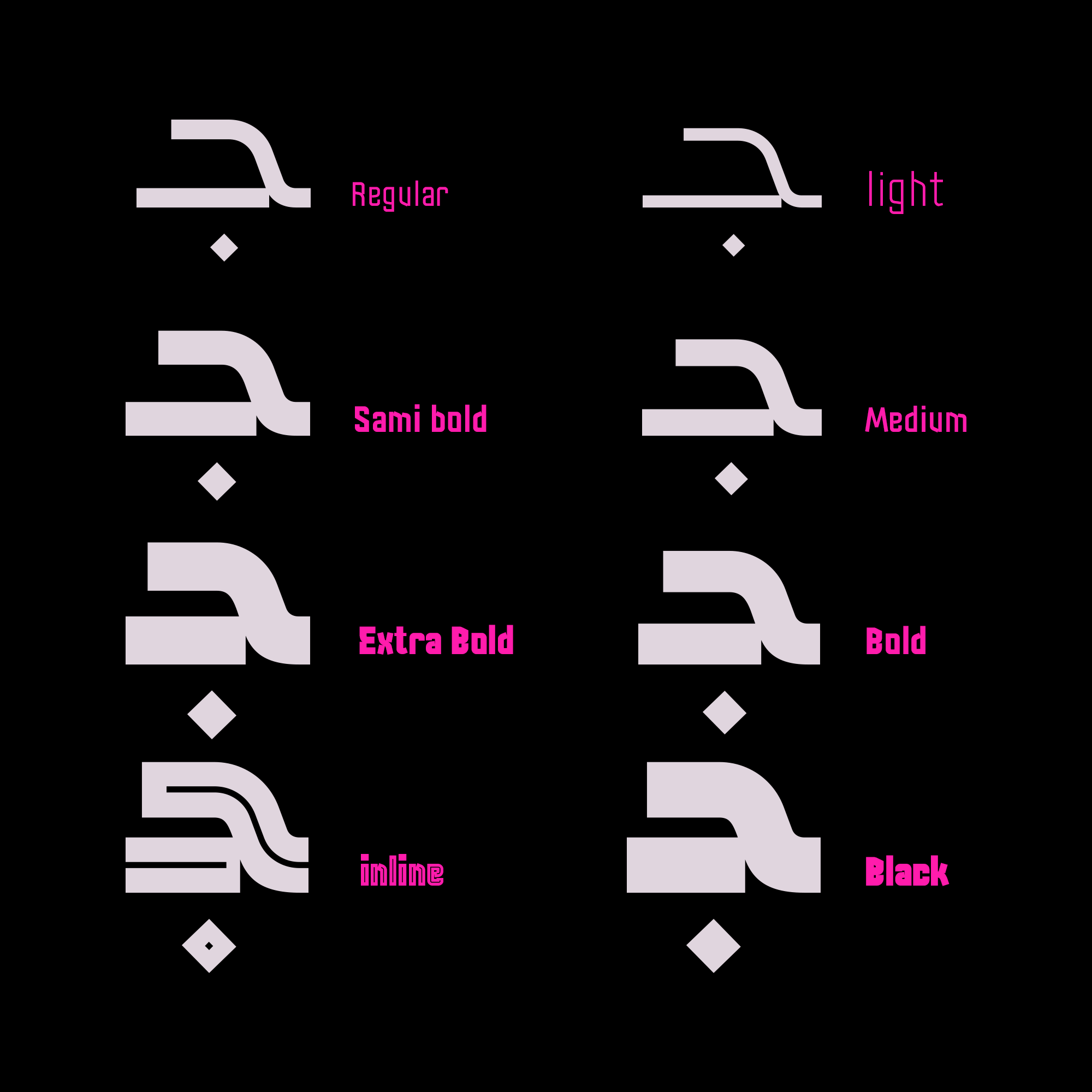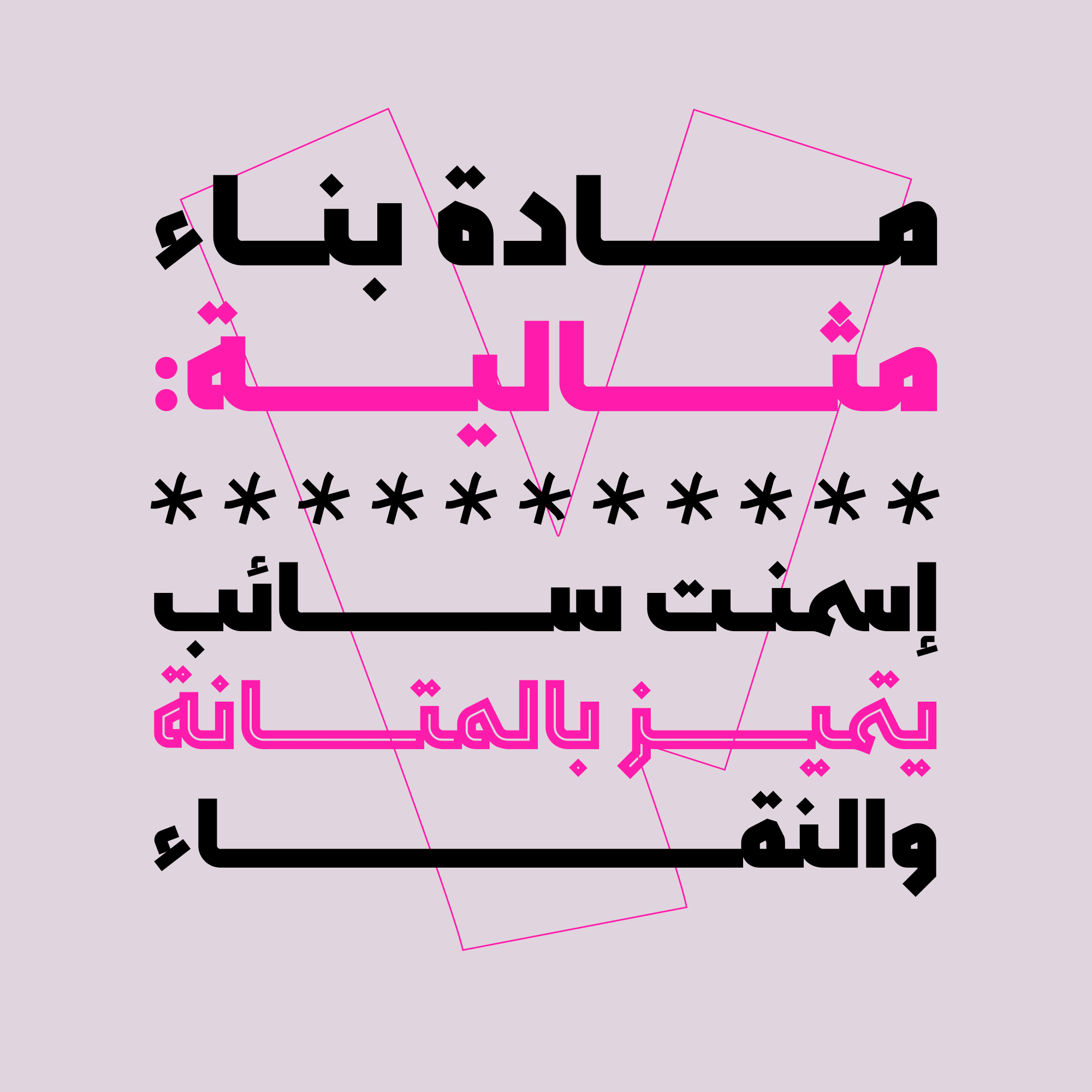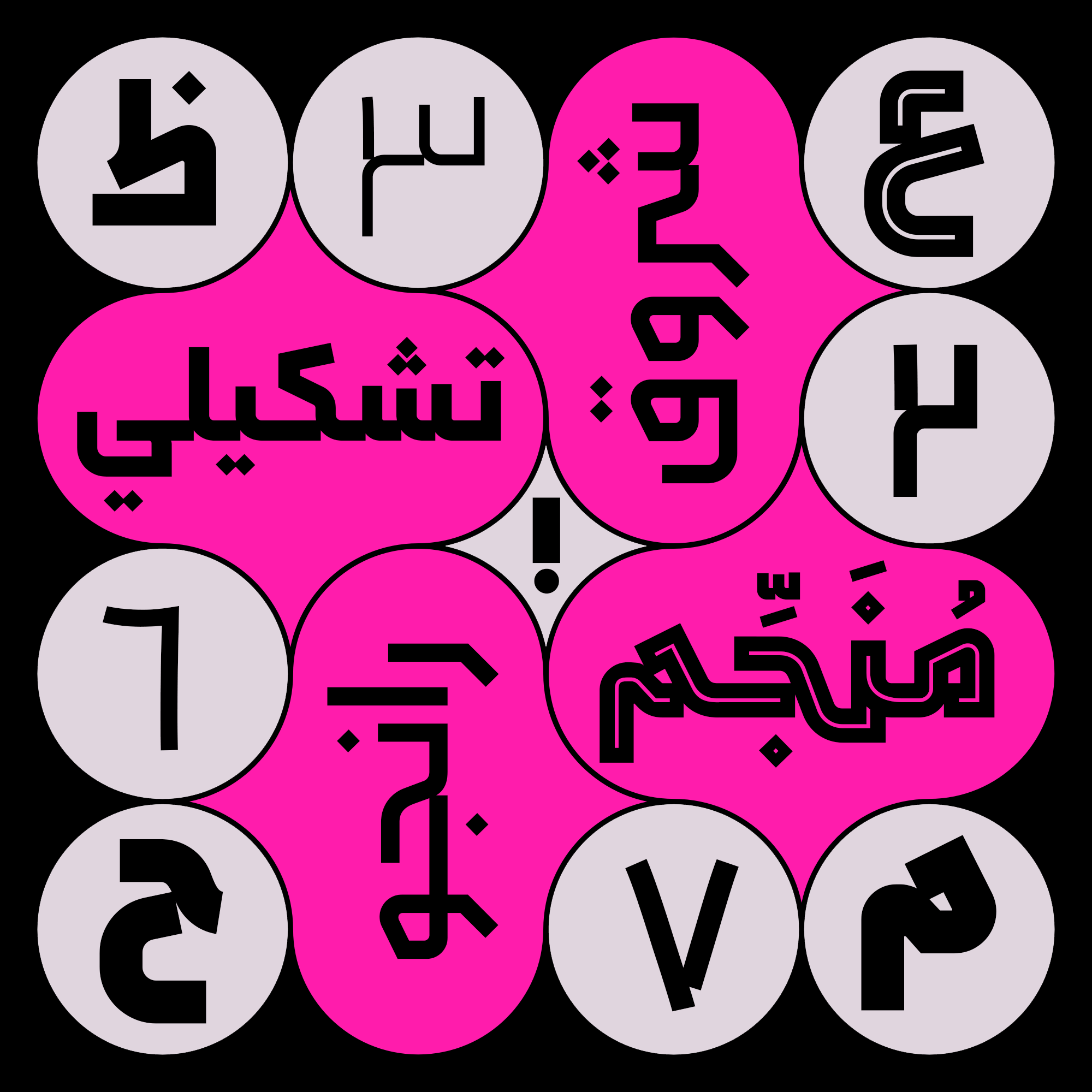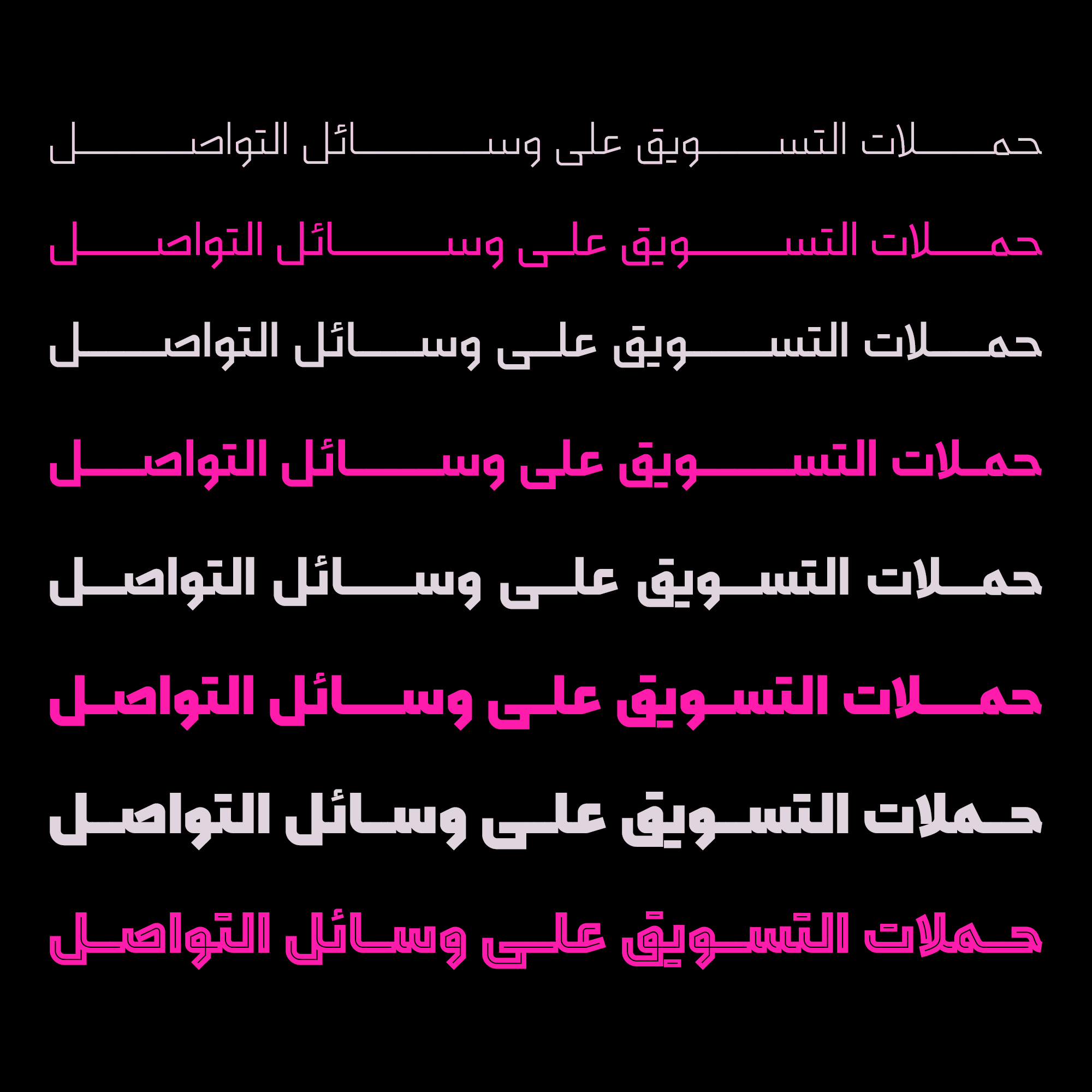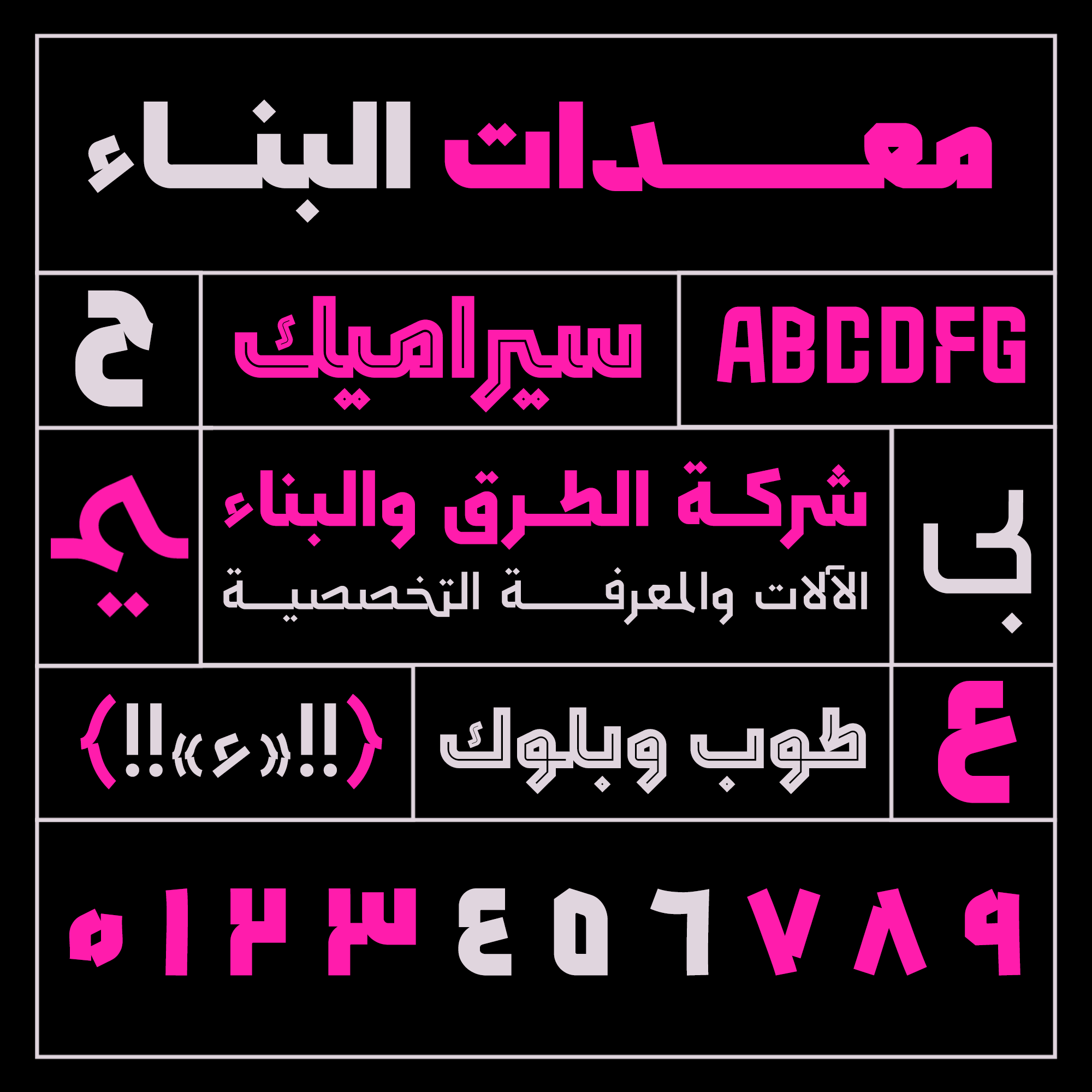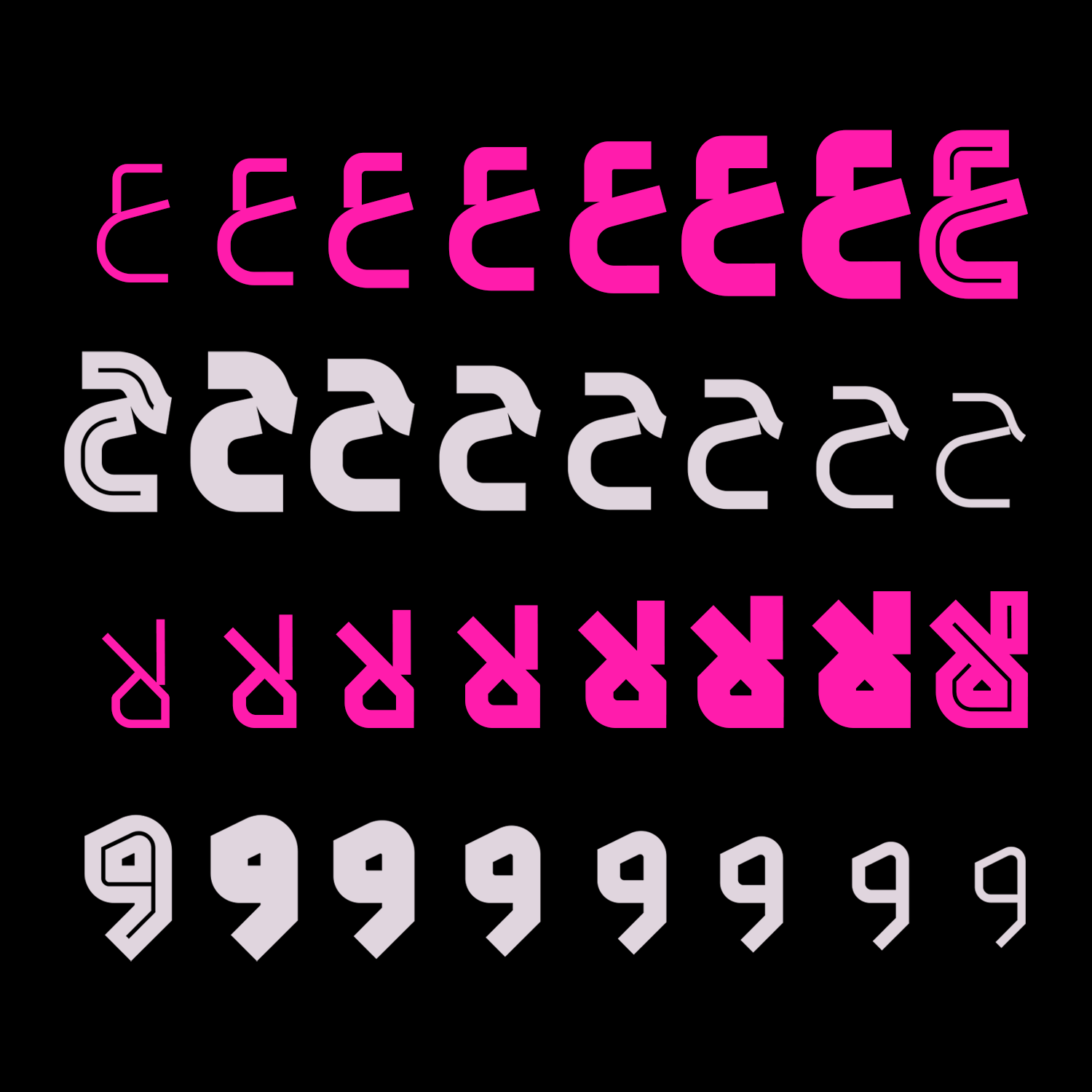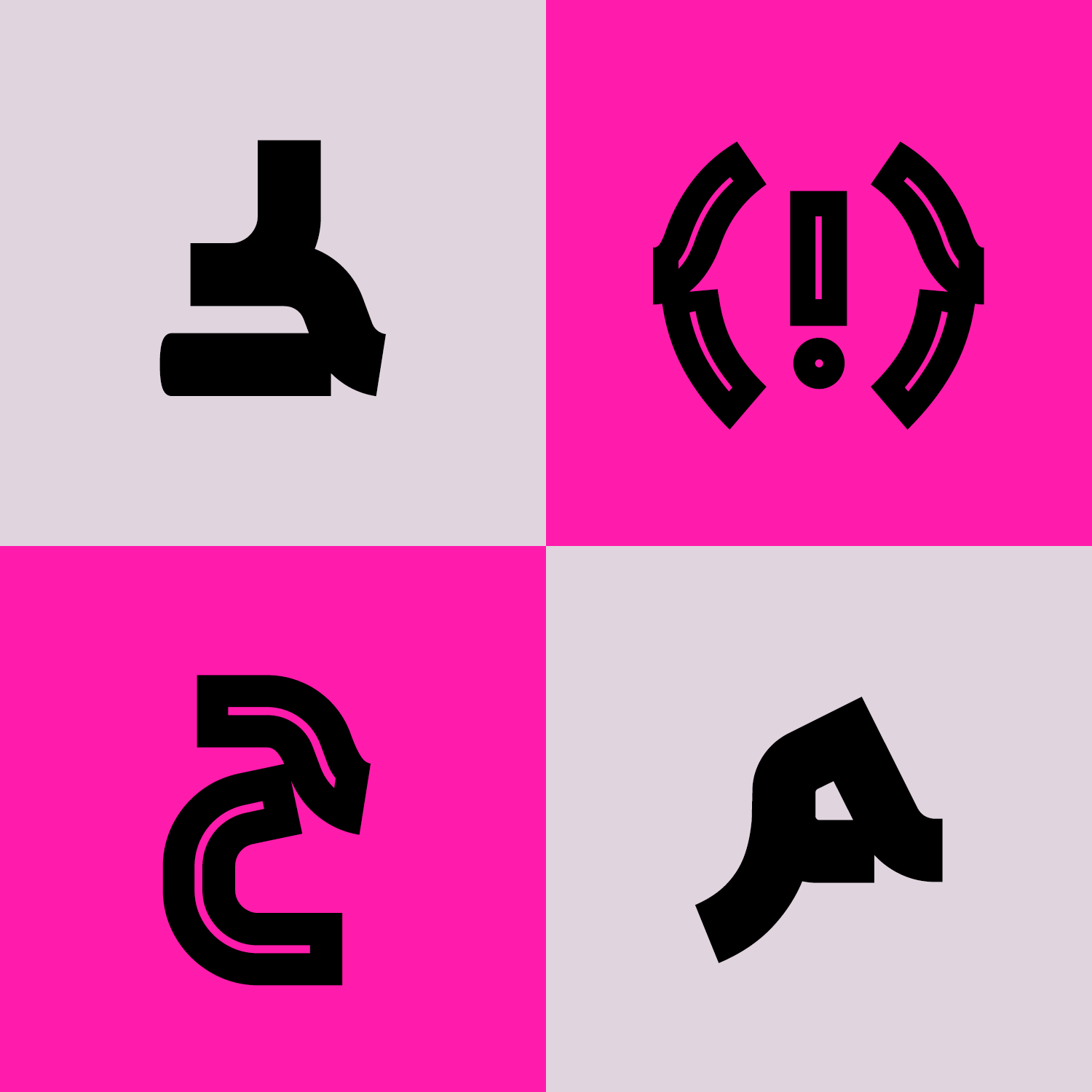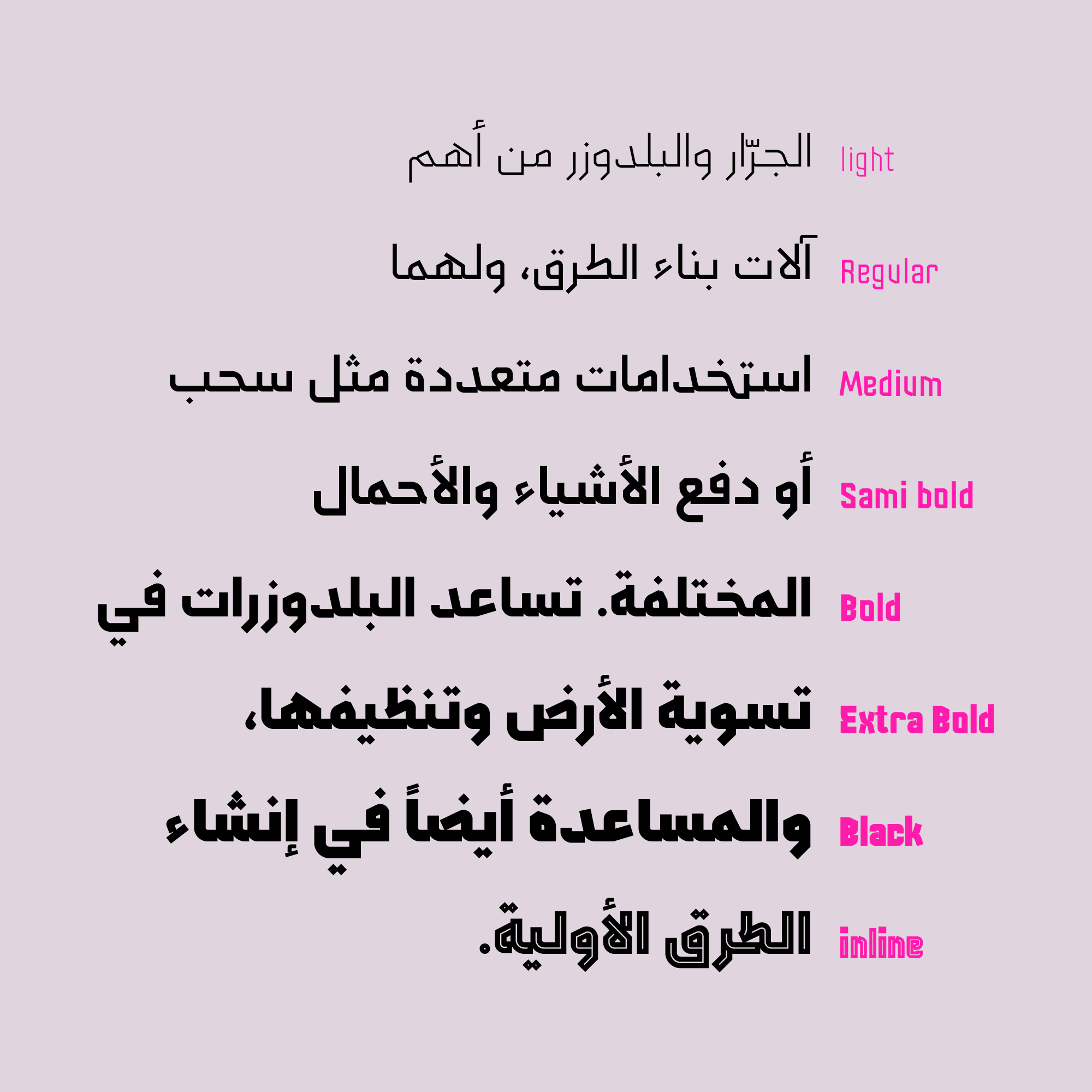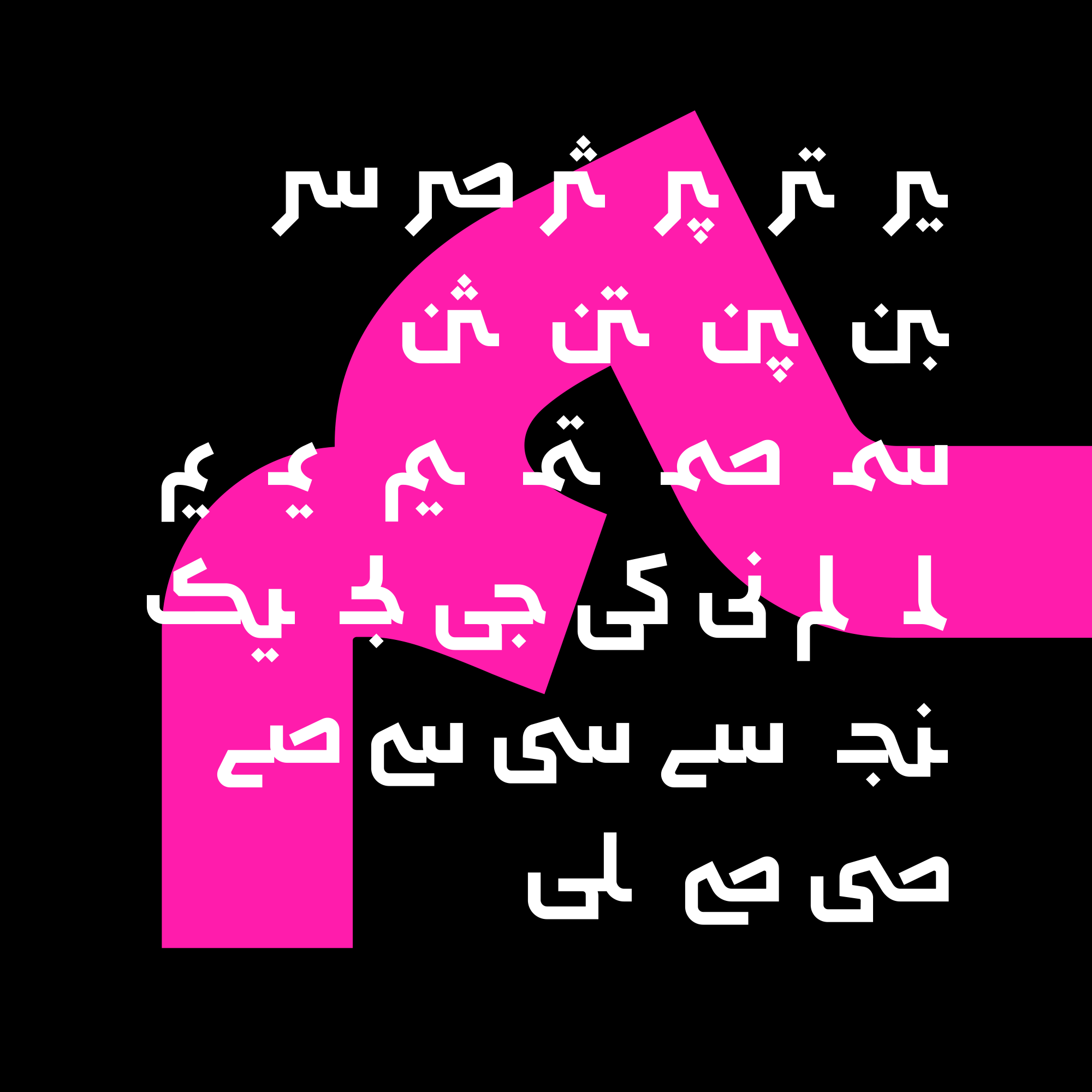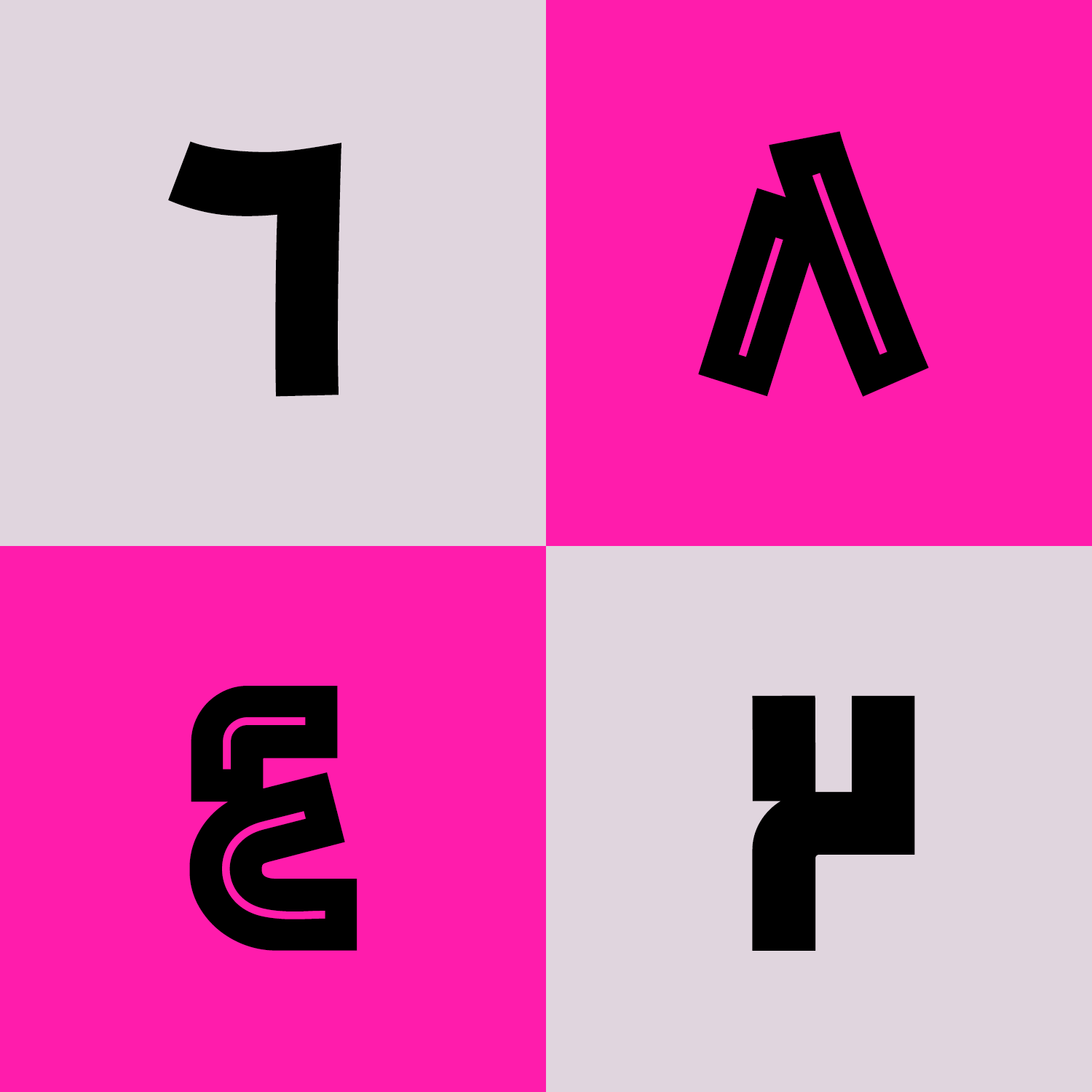
Sepid
Sepid is a geometric, monoline typeface. The designer has created a unique sense of continuity by introducing breaks in the letter stems—a feature rarely seen in other typefaces.
Although Sepid has a geometric and modern appearance, its roots remain in traditional calligraphy. The typeface strikes a balance between contemporary structure and classical forms.
The characters of Sepid are simple yet distinctive. The typeface appears strong and solid, while still feeling dynamic and attractive.
Sepid includes alternate characters and multiple ligatures, making it suitable for creative and expressive display typography.
This typeface is ideal for commercial advertising, industrial design, and social media content.
Sepid is available in seven weights and one inline style. This variety allows you to use it for everything from short headlines to longer descriptive texts..